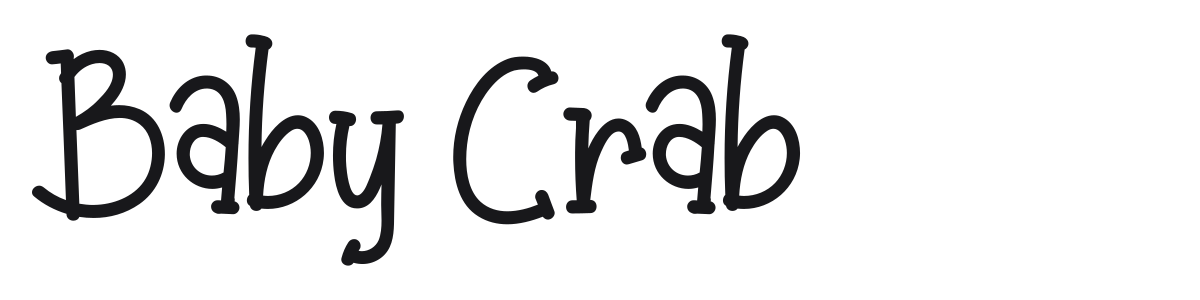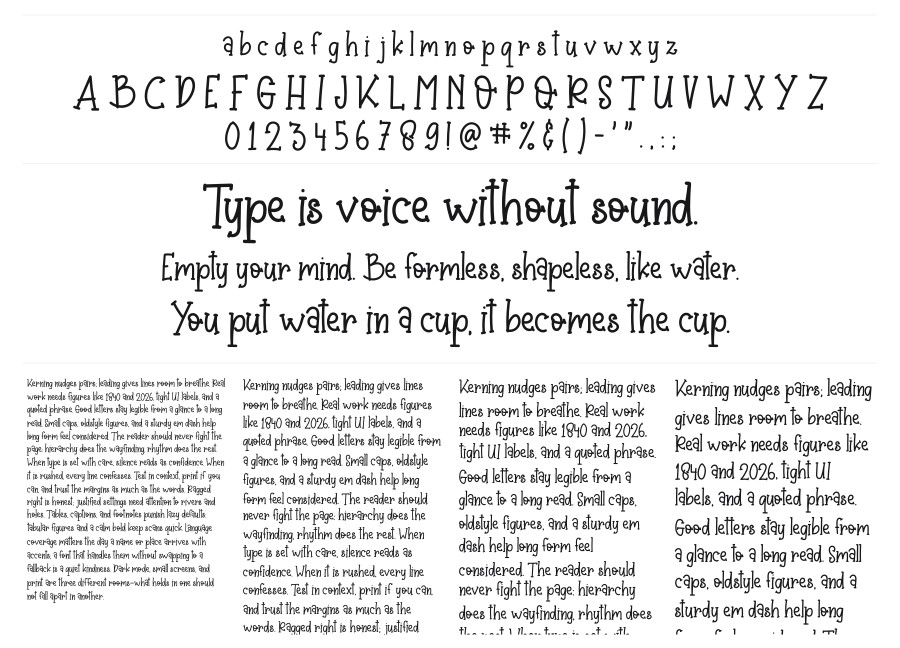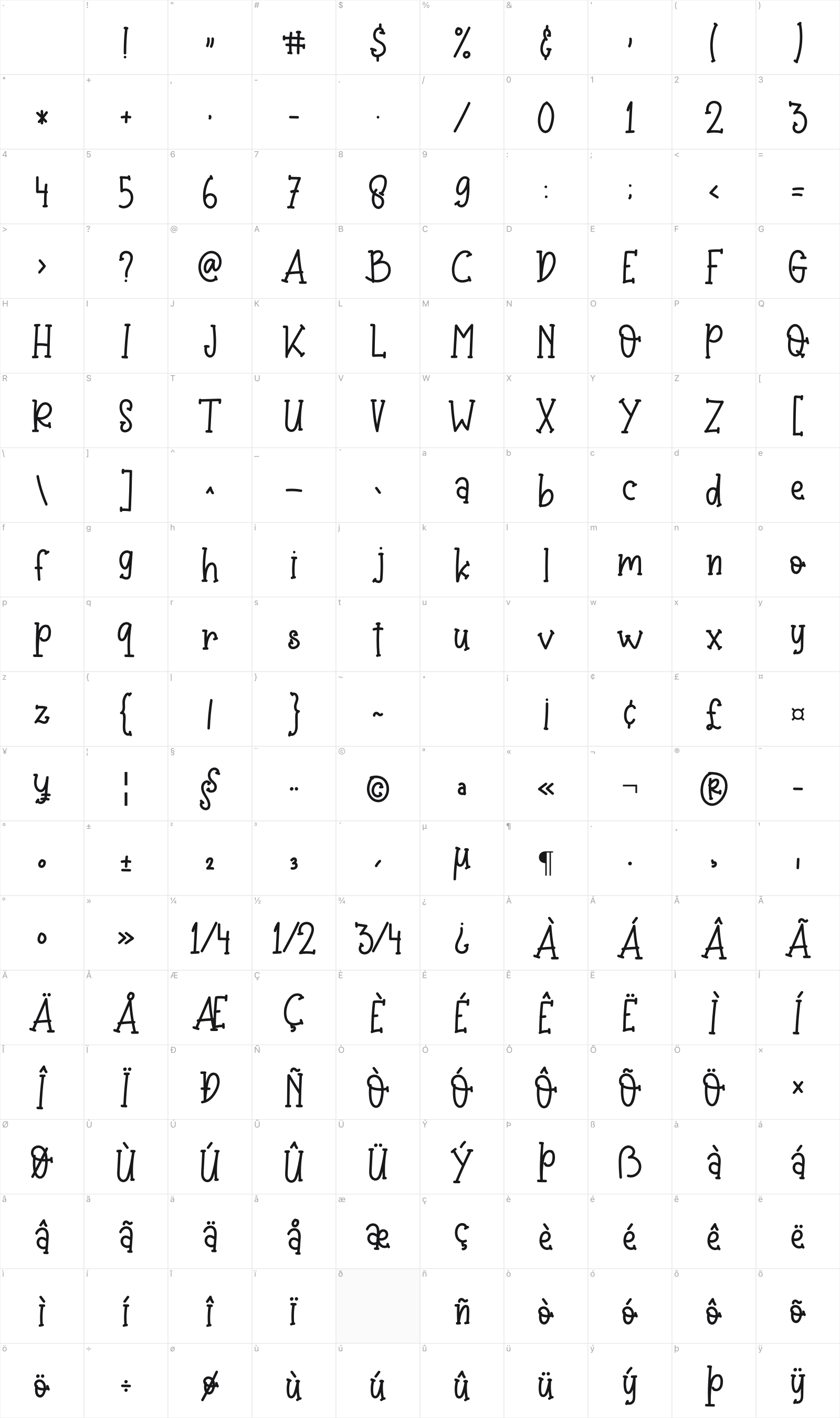
Baby Crab
Baby Crab is a playful display serif with rounded ball terminals, chunky proportions, and a cheerful hand-drawn wobble. The slightly irregular construction and curling serifs give it a cartoon quality that feels warm and approachable rather than polished. Strong for children's branding, packaging, and any headline that needs personality.